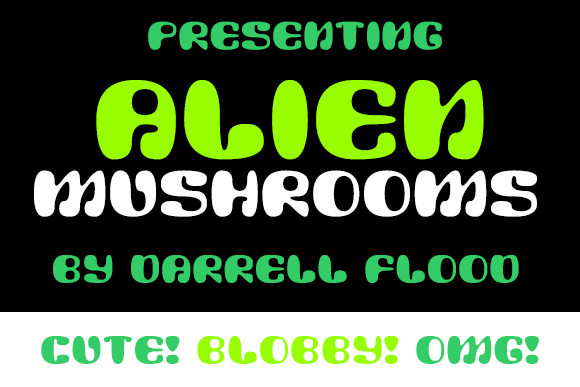
Discover the Whimsical World of Alien Mushrooms Font
Are you looking for a font that adds a touch of quirkiness and fun to your designs? Look no further than the Alien Mushrooms Font, a soft clay-style font created by Darrell Flood. This delightful font is perfect for unusual cartoony themes and psychedelic settings, making it an excellent addition to your typography collection.
What is Alien Mushrooms Font?
Alien Mushrooms Font is a unique and playful font designed to bring a smile to your face. Its soft, clay-like texture gives it a distinctive and endearing quality, making it ideal for projects that require a dash of whimsy. Whether you’re working on a children’s book, a cartoon-style animation, or a psychedelic art piece, this font is sure to add a touch of magic to your design.
Key Features of Alien Mushrooms Font
• Soft Clay Style: The font’s soft, clay-like texture gives it a unique and endearing quality.
• Quirky and Fun: Alien Mushrooms Font is perfect for designs that require a touch of quirkiness and playfulness.
• Perfect for Cartoony Themes: The font’s cartoon-style design makes it ideal for children’s books, animations, and other cartoony projects.
• Psychedelic Settings: The font’s unique texture and style also make it suitable for psychedelic art pieces and designs.
• Created by Darrell Flood: The font was designed by Darrell Flood, a talented font creator with a passion for typography.
Uses for Alien Mushrooms Font
Alien Mushrooms Font is a versatile font that can be used in a variety of projects, including:
• Children’s Books: The font’s playful and whimsical design makes it perfect for children’s books, especially those with a fantastical or sci-fi theme.
• Animations and Cartoons: The font’s cartoon-style design makes it ideal for animations, cartoons, and other video projects.
• Psychedelic Art: The font’s unique texture and style also make it suitable for psychedelic art pieces and designs.
• Branding and Packaging: Alien Mushrooms Font can also be used for branding and packaging projects that require a touch of quirkiness and playfulness.
Tips for Using Alien Mushrooms Font
Here are some tips for getting the most out of Alien Mushrooms Font:
• Use it Sparingly: While the font is playful and fun, it can be overwhelming if used excessively. Use it sparingly to add a touch of whimsy to your design.
• Experiment with Colors: The font’s soft, clay-like texture looks great in a variety of colors. Experiment with different colors to find the perfect combination for your design.
• Pair it with Other Fonts: Alien Mushrooms Font can be paired with other fonts to create a unique and interesting typography combination.
Alien Mushrooms Font is a fun, quirky font that’s perfect for unusual cartoony themes and psychedelic settings. Its soft, clay-like texture and playful design make it an excellent addition to your typography collection. With its versatility and unique style, this font is sure to add a touch of magic to your designs.
About the Font Creator: Darrell Flood
Darrell Flood is a talented font creator with a passion for typography. With a keen eye for detail and a love of creative design, Darrell has created a range of unique and interesting fonts, including the popular Alien Mushrooms Font.
Font Style Soft Clay Style
Font Creator Darrell Flood
Use Cases Children’s books, animations, psychedelic art, branding, and packaging